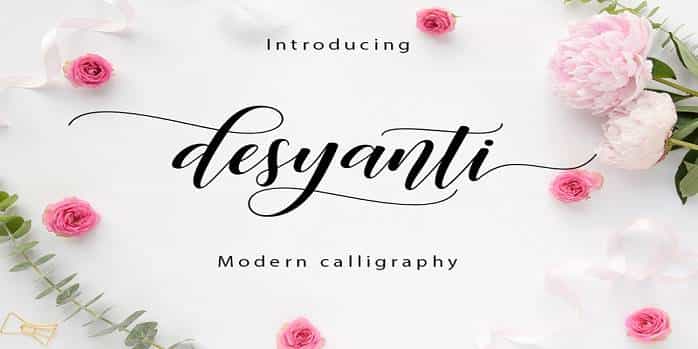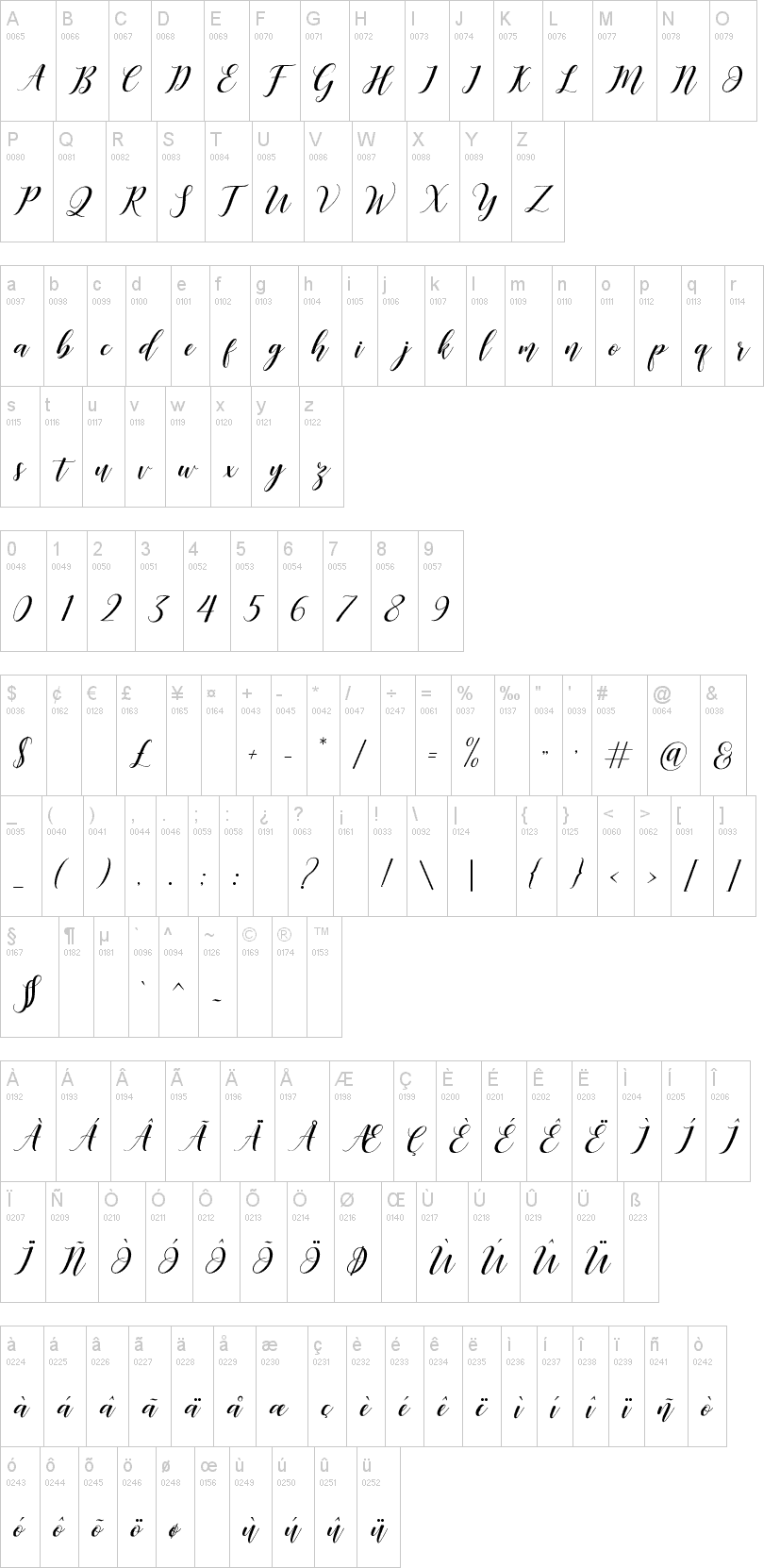
Desyanti script a new fresh and modern script with a handmade calligraphy style, decorative characters and dancing baseline. They also look great on invitation such as greeting cards, branding items, business cards, quotes, posters and many other.